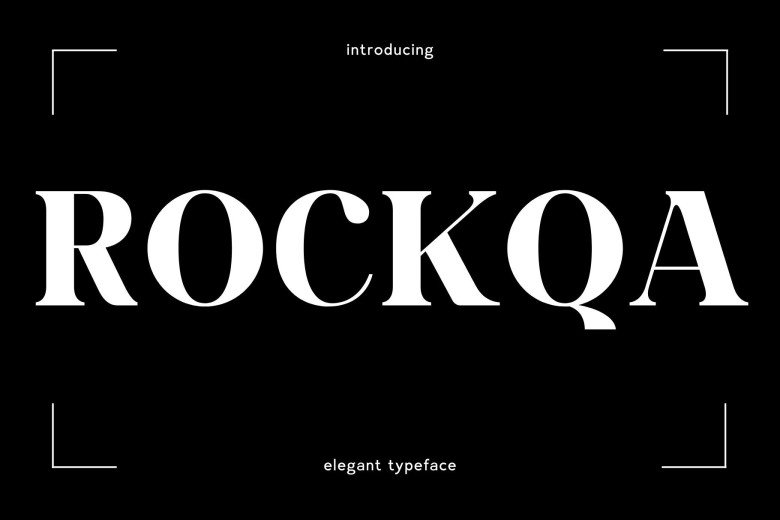
Rockqa Font
Introduce “Rockqa,” an elegant and contemporary serif font resonating with sophistication and elegance. Boasting timeless styling with its sophisticated design, Rockqa adds a timeless sense of beauty and refinement to your designs – ideal for invitations or branding designs with its crisp lines and smooth curves that give an air of modern sophistication to compositions.
Rockqa Serif Font